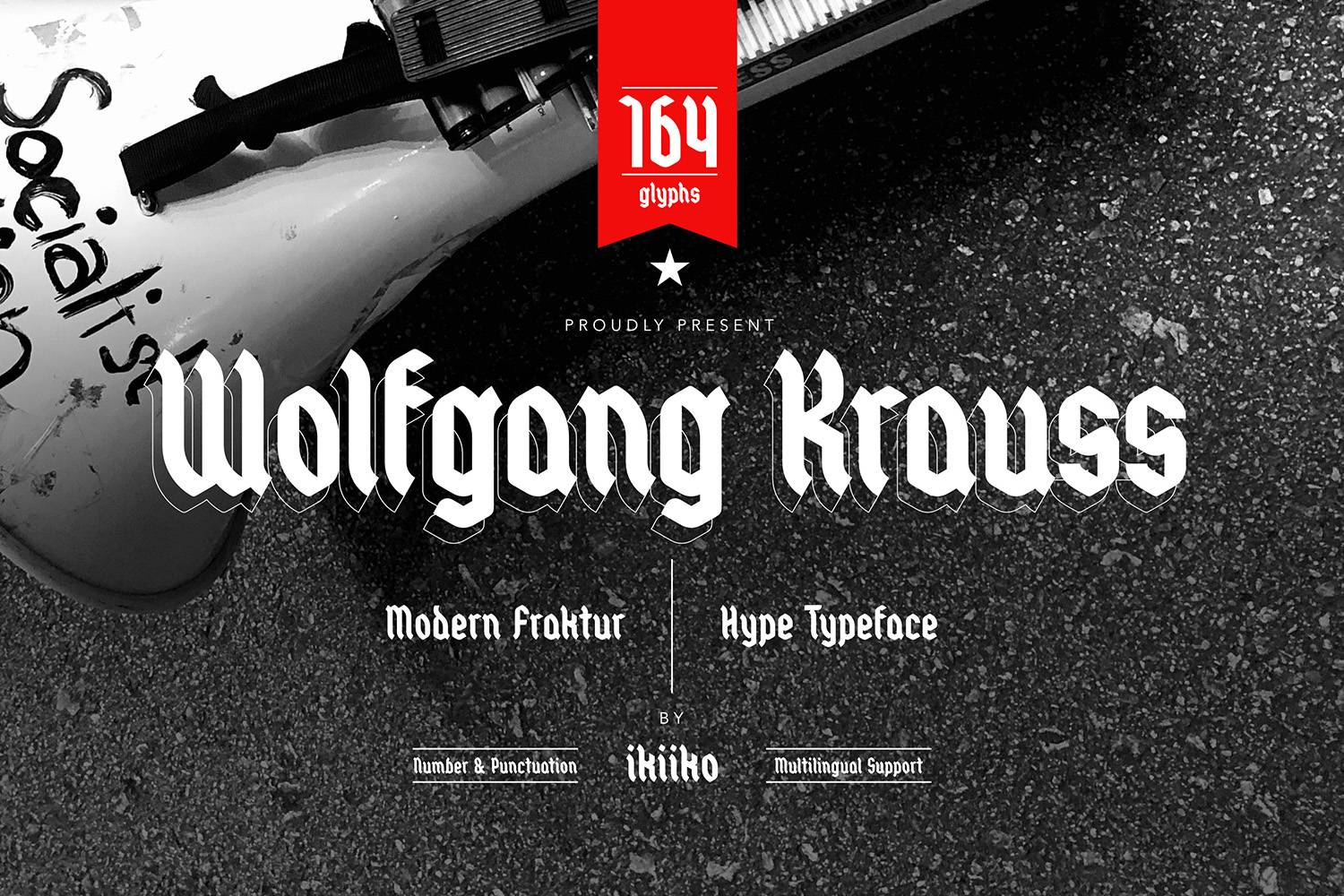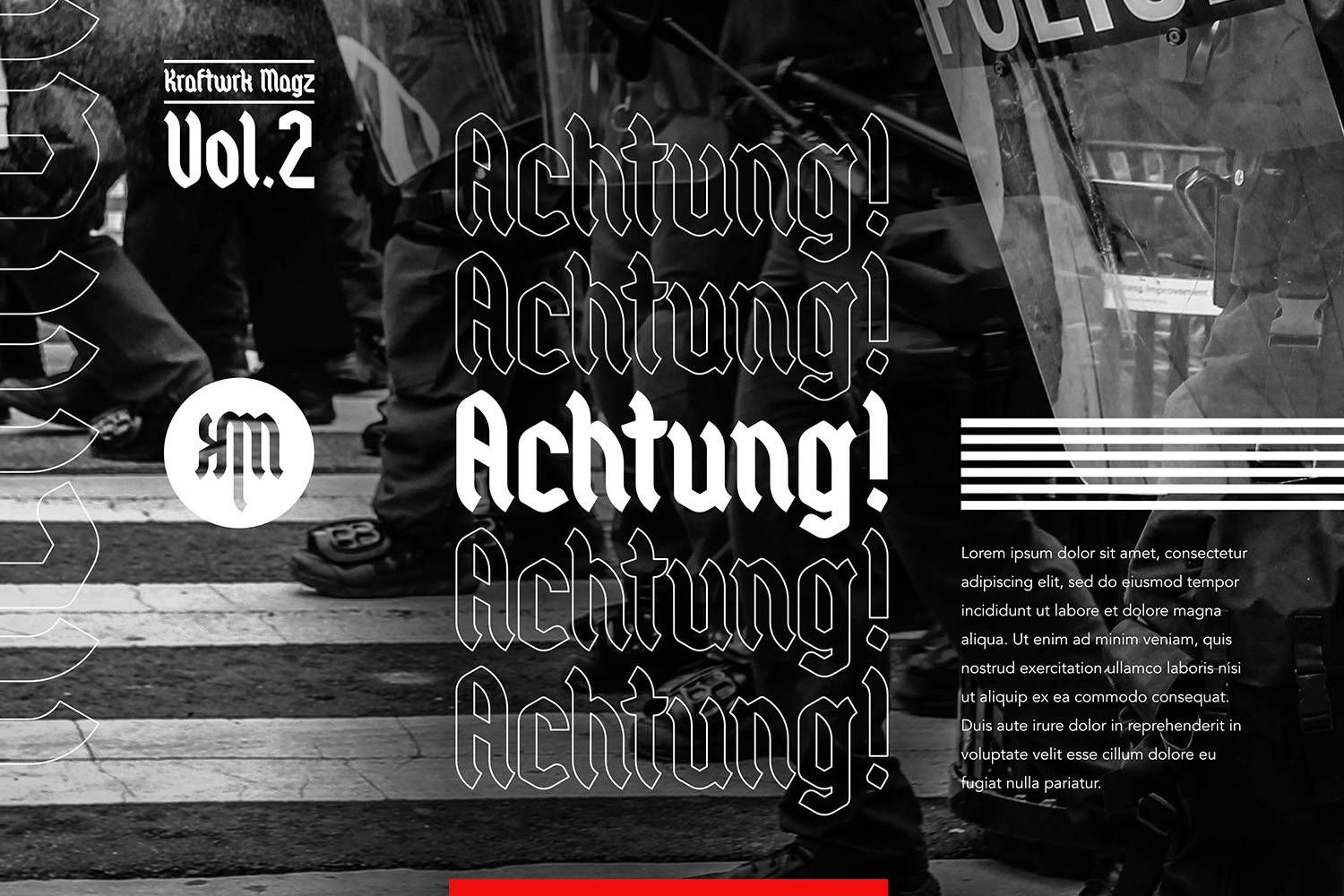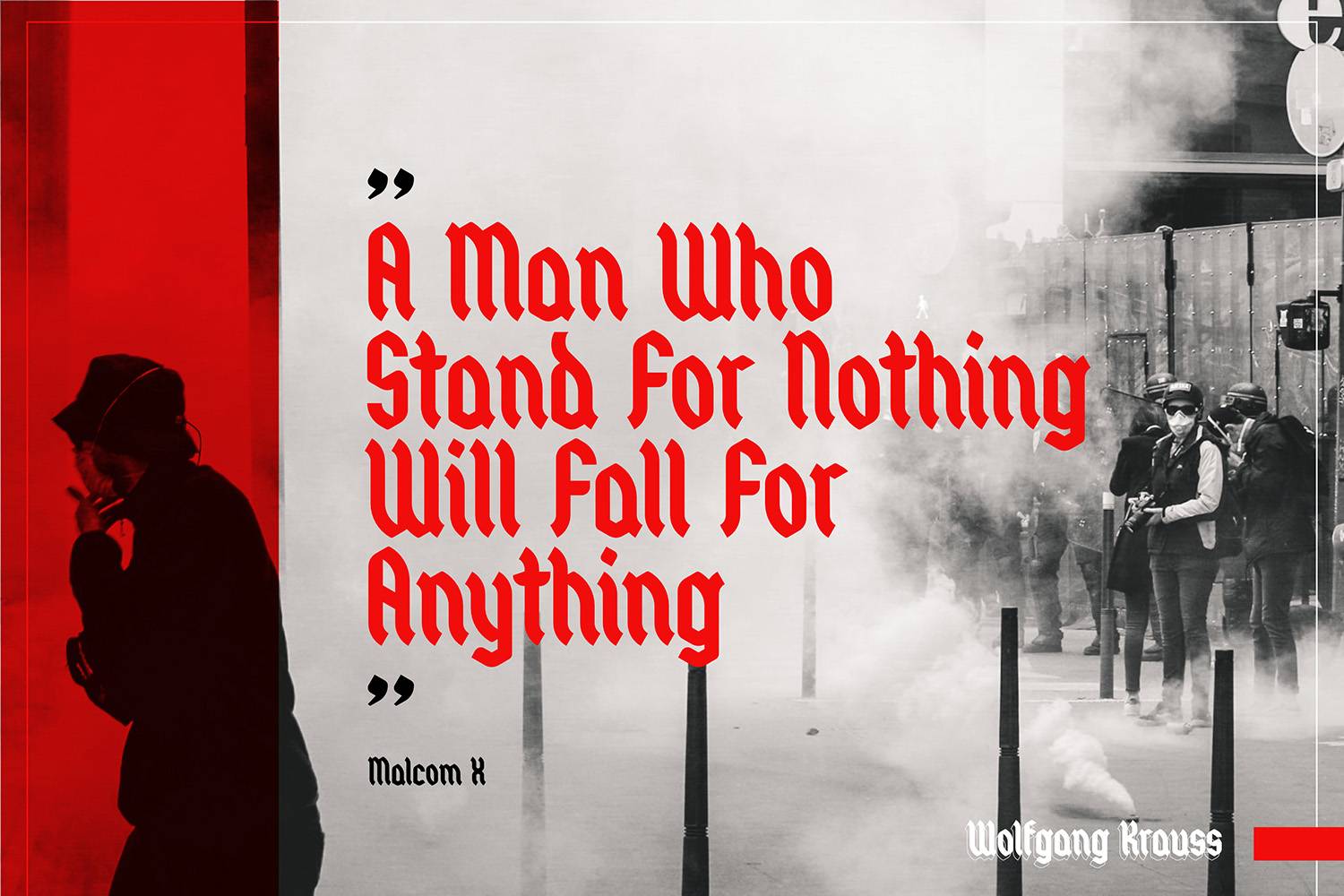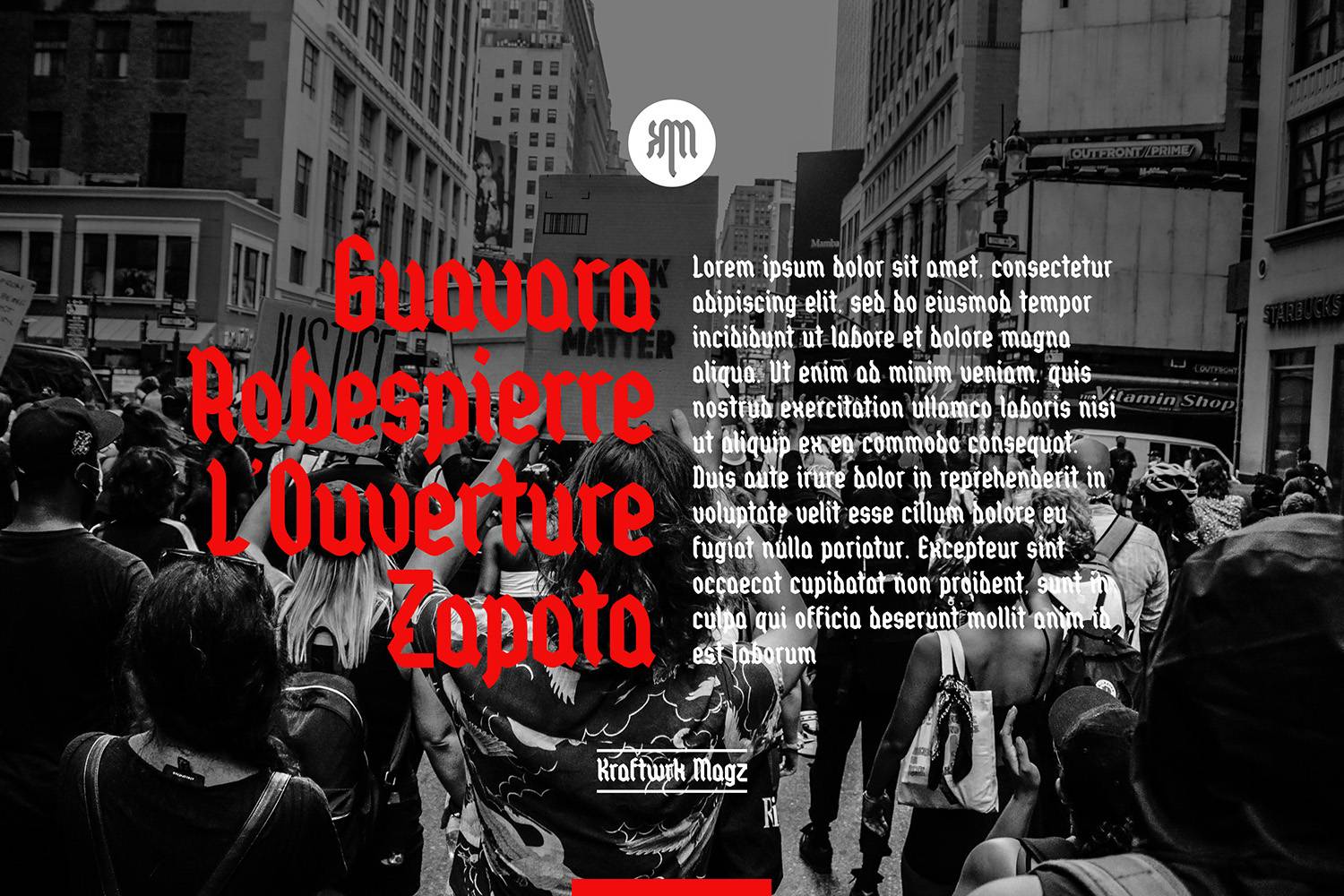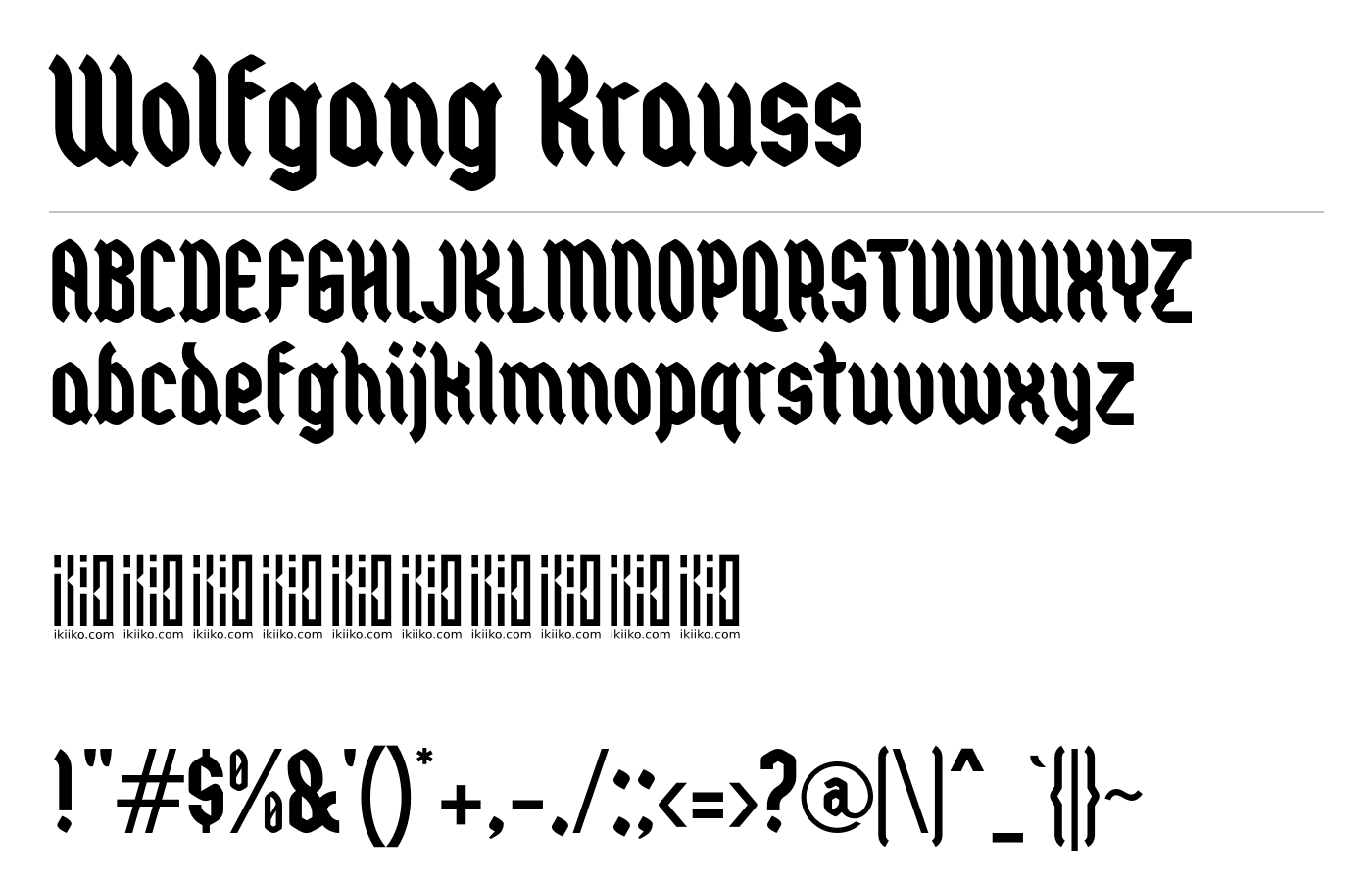
Wolfgang Krauss is a bold, blackletter-inspired serif font with strong, angular forms and a modern Gothic flair. Its dense, upright structure and high contrast strokes evoke a medieval, authoritative feel, making it ideal for striking headlines, branding with a vintage or alternative edge, and editorial designs that seek a dramatic, historic atmosphere. This font's unique character shapes bring a distinctive personality that stands out while retaining legibility in display use.
Wolfgang Krauss Font
About Wolfgang Krauss Font
| Font family | Wolfgang Krauss Font |
| Release date | 2022-01-14 |
| Designer | Andhika Pradana, Wahyu Eka Prasetya |